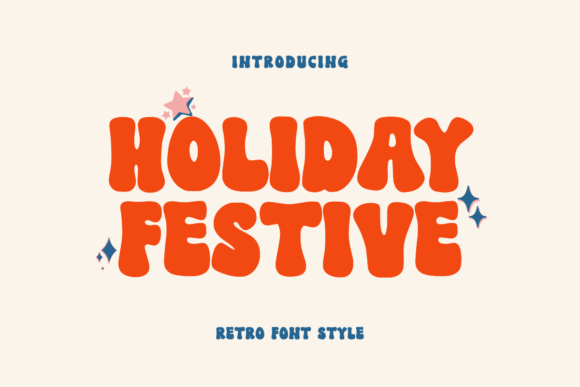
Introducing Holiday Festive Font, the ultimate choice for all your display poster needs! Created by the talented designer Sakti Avellin, this cool retro font style is guaranteed to captivate and uplift your designs. Say goodbye to dull and ordinary fonts, and embrace the vibrant and playful essence of Holiday Festive!
With its eye-catching appeal, Holiday Festive Font is perfect for a wide range of projects. Whether you're designing quotes, t-shirts, tote bags, greeting cards, mugs, or sale tags, this font will add a touch of fun and excitement. Its versatility knows no bounds, allowing you to effortlessly create stunning visuals that leave a lasting impression.
Immerse yourself in a world of creativity as you explore the endless possibilities that Holiday Festive Font offers. Its unique style and captivating aura will effortlessly elevate your designs, making them stand out from the crowd. Let your imagination run wild and watch as this font breathes life into your artwork.
But what truly sets Holiday Festive Font apart is its ability to evoke emotions. Crafted with utmost care, this font exudes joy, nostalgia, and a sense of adventure. It takes your audience on a journey, sparking feelings of happiness and warmth. Whether you're aiming to create a whimsical atmosphere or a vibrant retro vibe, Holiday Festive Font is the perfect tool to bring your vision to life.
Unlock a world of endless possibilities with Holiday Festive Font. Its seamless integration into your designs will leave your audience in awe, craving more of your visually stunning creations. Stand out from the competition, attract attention, and make a lasting impact with this font that truly speaks to the heart.